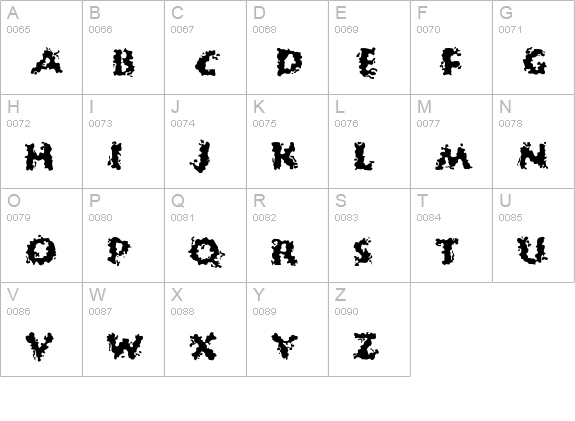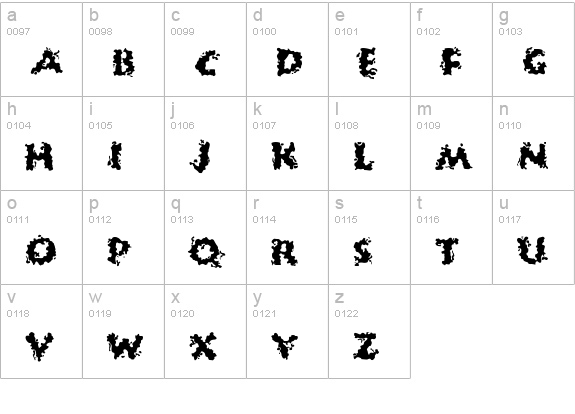
Huckle Buff Font Details
Introducing Huckle Buff font, a delightful and whimsical typeface that is sure to add a touch of playfulness to your designs. This fun and quirky font features charming irregular shapes and a hand-drawn feel that exudes warmth and personality. Perfect for projects that call for a unique and friendly touch, Huckle Buff font is versatile and easy to read, making it ideal for a wide range of design applications. Best of all, Huckle Buff font is completely free to download at FontsMarket.com, allowing you to bring a touch of whimsy to your projects without breaking the bank. Whether you're working on invitations, posters, packaging, or any other creative endeavor, Huckle Buff font is sure to bring a smile to your audience's face. Download it today and let your creativity run wild with this playful and charming typeface.